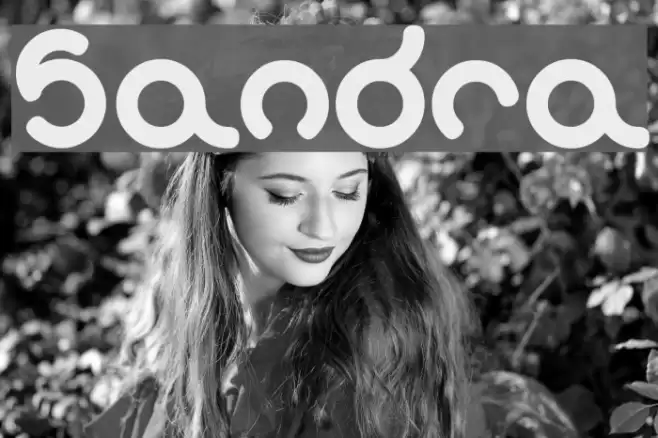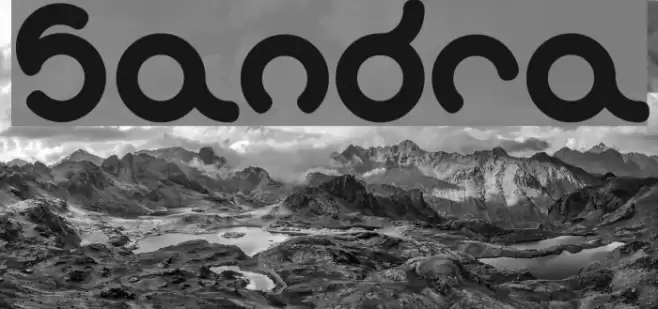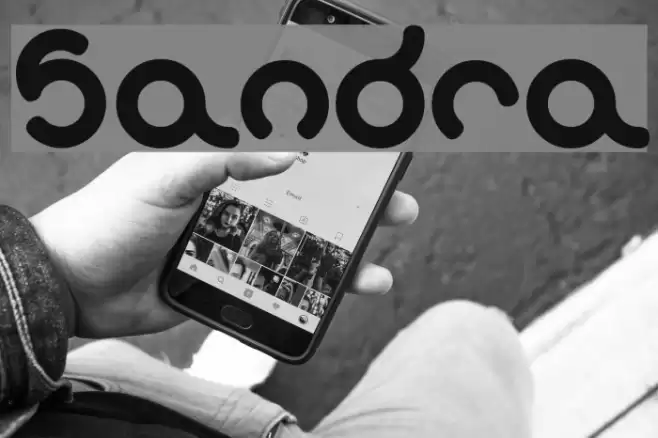
sandra Font
sandra Description
This font features a playful and unique design with bold, rounded characters that exhibit a whimsical and decorative style. The letters are characterized by their thick strokes and circular shapes, creating a sense of movement and fluidity. The overall appearance is both modern and artistic, making it stand out with its distinctive curves and loops. The font maintains a consistent weight throughout, contributing to its bold and eye-catching nature. Its creative design makes it suitable for projects that require a touch of fun and creativity.
A bold, playful font with rounded, decorative characters from Uncategorized fonts.
- Proposed Projects: Ideal for children's books, playful branding, creative posters, and artistic invitations.
- Overall Style: Playful, Modern, Artistic
- Use Case: Logos, Posters, Creative projects